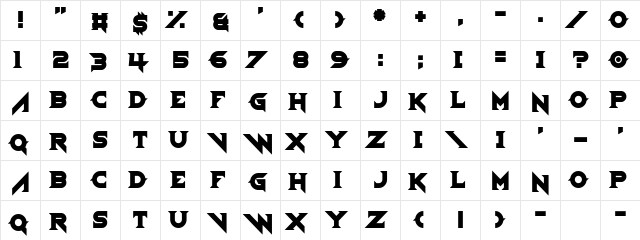
Demoness Regular
| Designer | Allison James |
Design Context for Demoness Typeface
Demoness is a composed and adaptable typeface that performs quietly and consistently across a wide range of design contexts.